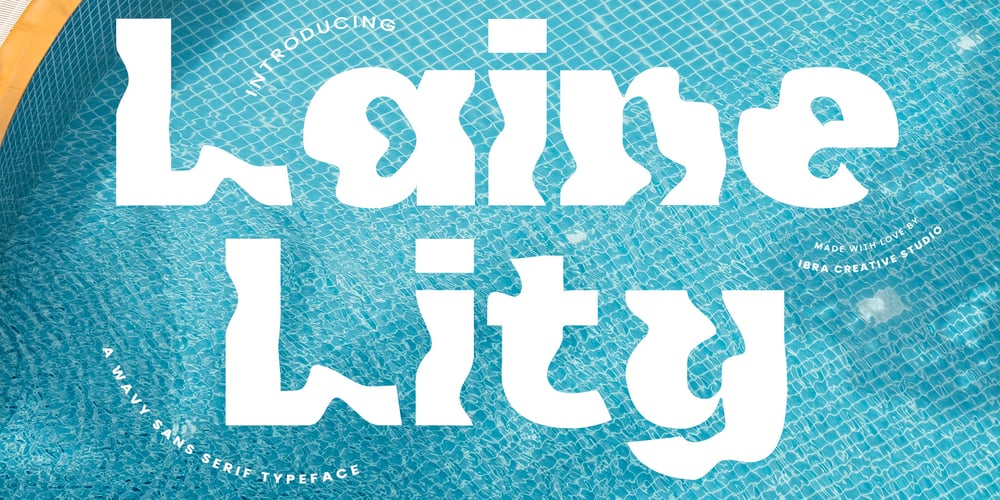
Laine Lity Font Family was designed by Roisatul Azizah and published by IbraCreative. Laine Lity contains 1 styles and family package options. Laine Lity – A Wavy Sans Serif TypefaceLaine Lity, a wavy sans-serif typeface, captivates with its fluidity and modern appeal. Each letter in Laine Lity is crafted with smooth, undulating lines that evoke a sense of movement and dynamism. Perfect for adding a contemporary touch to branding, editorial designs, or digital interfaces, Laine Lity stands out with its unique blend of elegance and innovation. Whether used for headings, signage, or web content, this typeface adds a distinctive flair that is both visually engaging and effortlessly chic. Laine Lity is perfect for branding projects, logo, wedding designs, social media posts, advertisements, product packaging, product designs, label, photography, watermark, invitation, stationery, game, fashion and any projects.Fonts include multilingual support for; Afrikaans, Albanian, Czech, Danish, Dutch, English, Estonian, Finnish, French, German, Hungarian, Italian, Latvian, Lithuanian, Norwegian, Polish, Portuguese, Slovak, Slovenian, Spanish, Swedish.